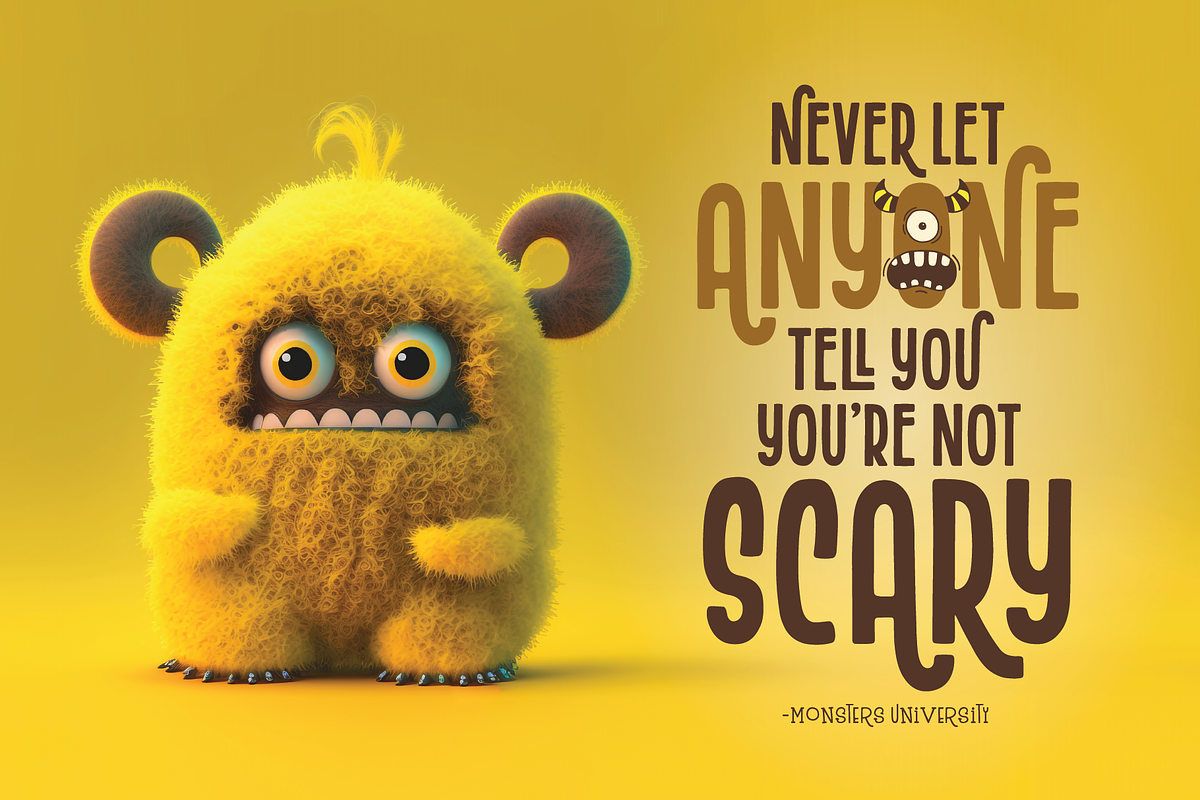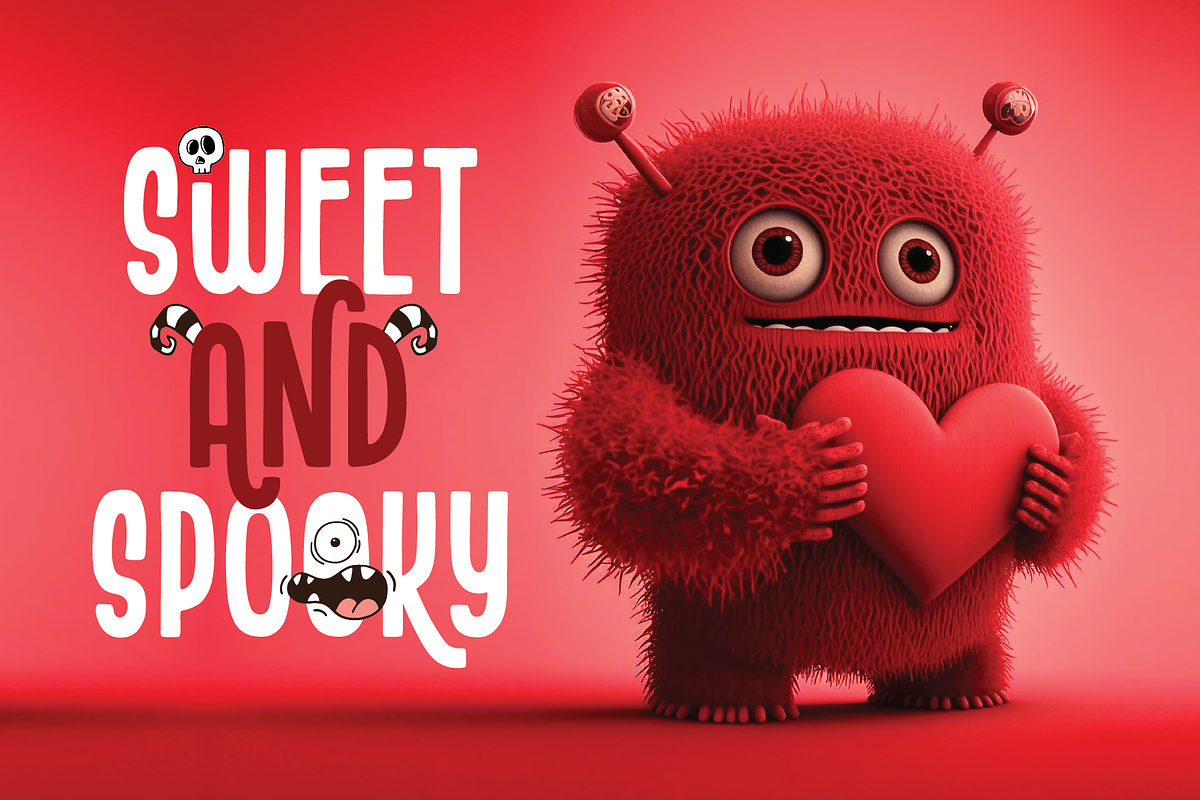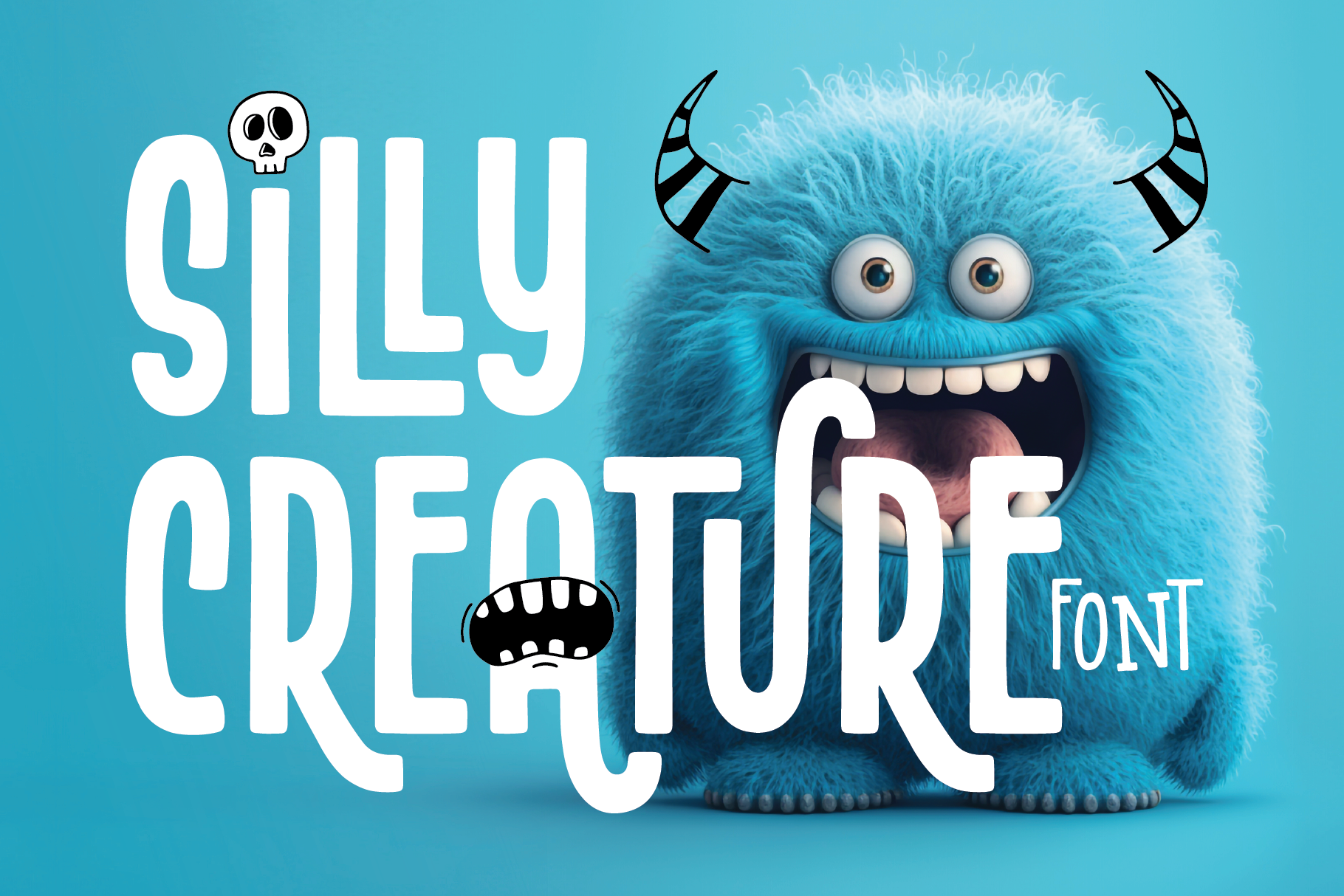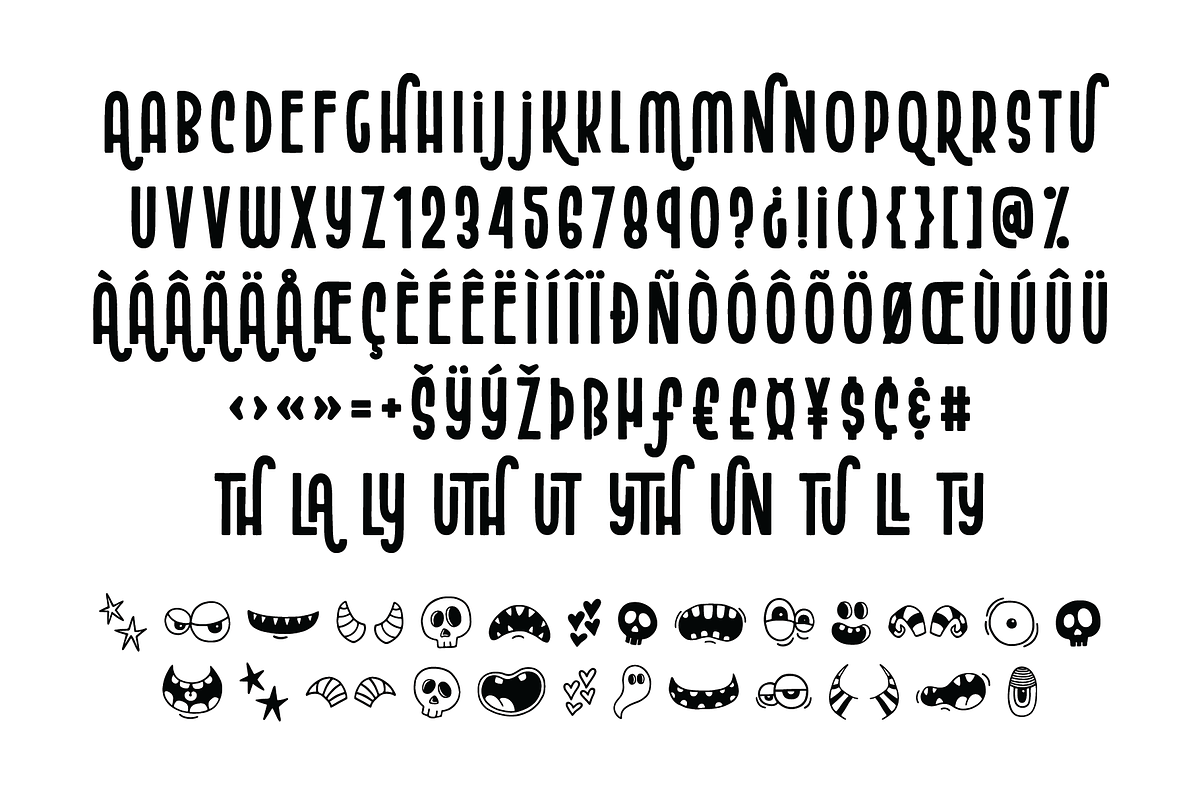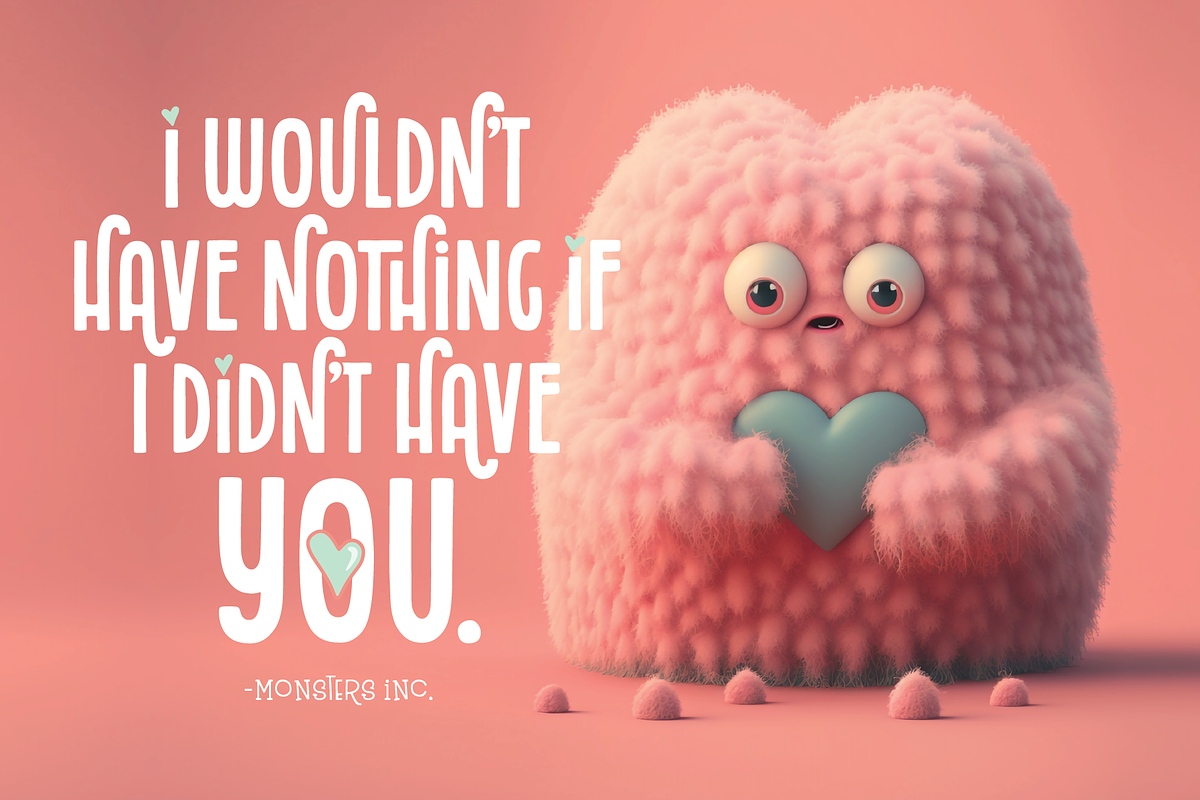
Silly Creature Font
Silly Creature is an all caps, condensed font. It has a casual, friendly style with a bunch of alternate characters and ligatures. It comes with a set of Silly Creature Doodles you can use to decorate the letters and create some fun typography.